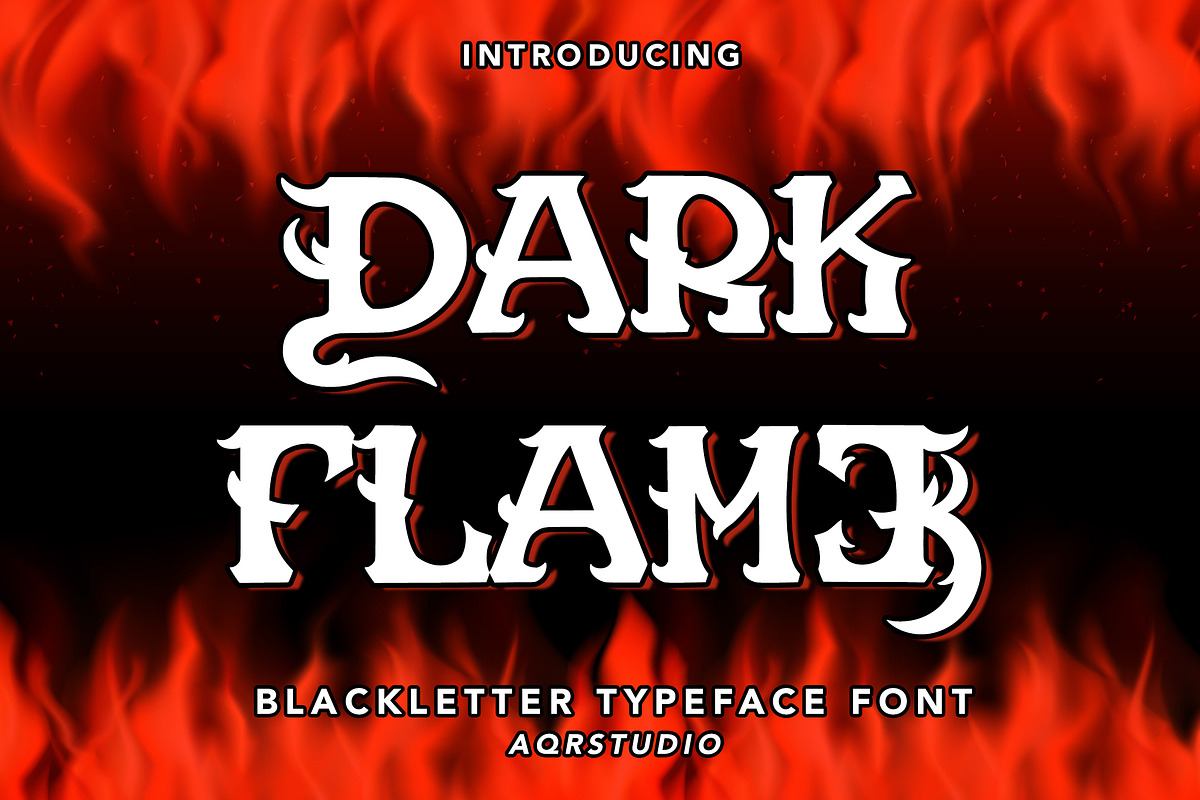
Dark Flame – Blackletter Font Free Download
Dark Flame – Blackletter Font Free Download is a powerful and dramatic typeface inspired by gothic calligraphy and medieval script traditions. With its sharp edges, intricate letterforms, and commanding presence, this font is perfect for band logos, tattoo designs, dark-themed branding, posters, and vintage-style editorial work.
Bold and unapologetic, Dark Flame – Blackletter Font Free Download delivers an intense aesthetic that captures the essence of rebellion, history, and craftsmanship. It’s ideal for projects that demand attitude, artistry, and a touch of darkness.